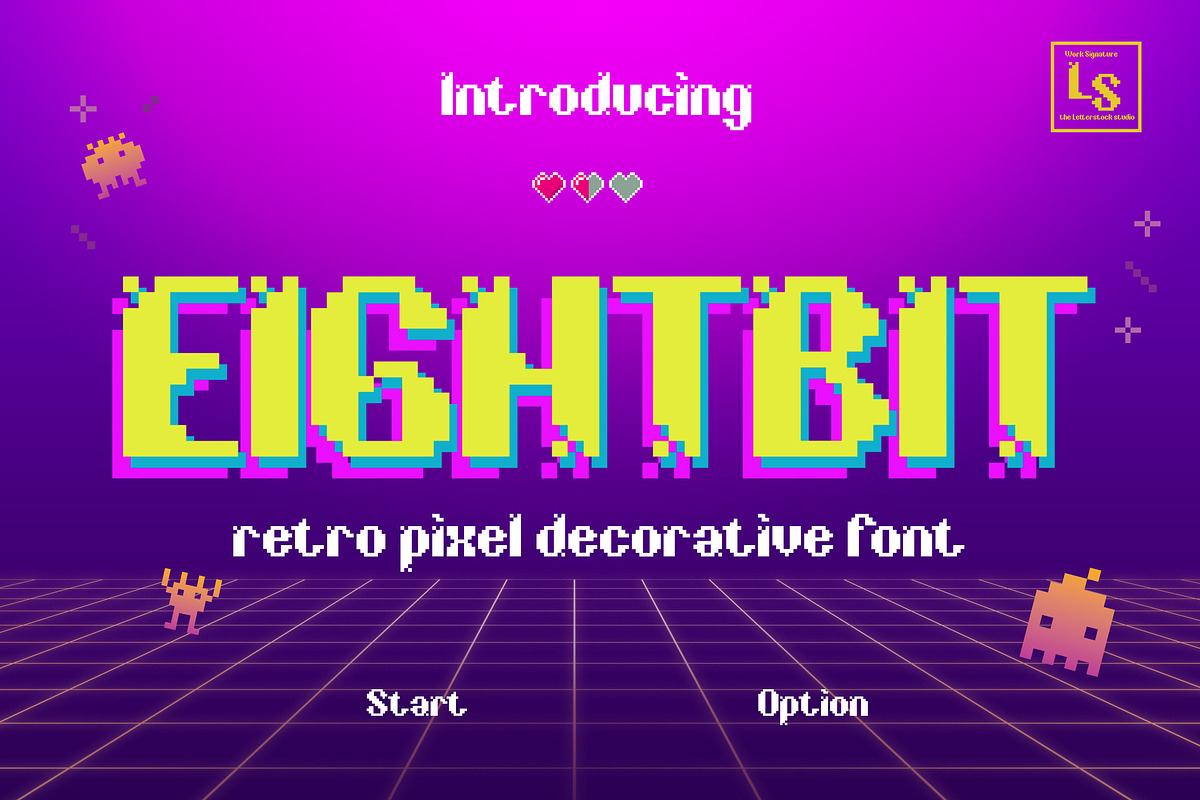
Eightbit Free Download
Eightbit Font Free Download
Eightbit Font Free Download is a playful and bold typeface inspired by retro video game graphics. With its pixelated design and distinct block-like letterforms, this font is perfect for creating designs with a vintage or gaming aesthetic. Whether you're working on logos, posters, game titles, social media graphics, or digital art, Eightbit Font Free Download brings a nostalgic, digital edge to your typography.
Its unique, blocky style adds fun and personality to your projects, making it ideal for anything from a gaming brand to a retro-themed event. The font's versatility also ensures it can be used for both large headlines and smaller body text, providing clarity and character.